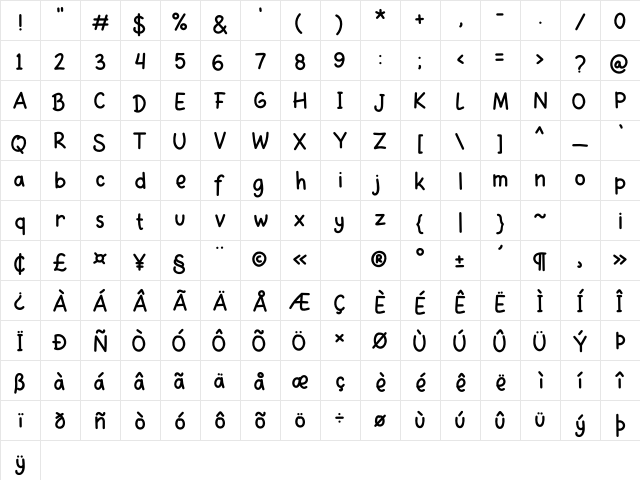
Dinomik Semibold
| Designer | Agustian Congberong |
Design Context for Dinomik Typeface
Dinomik is a composed and adaptable typeface that performs quietly and consistently across a wide range of design contexts. Its bold stroke weight gives it real presence on the page.